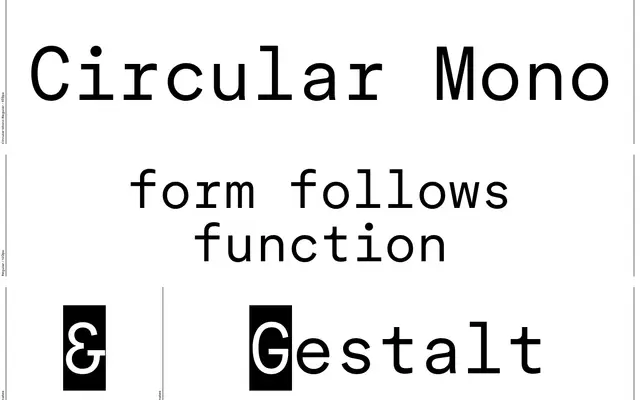
LL Circular Mono
Lineto · Laurenz Brunner · 2019
A monospaced adaptation of Laurenz Brunner's geometric sans LL Circular, released in 2019 after a decade of testing to fit fixed-width applications without sacrificing the family's warmth.
Where the original LL Circular balanced geometric rigour with warmth, the mono cut preserves x-heights, weights and joints intact while conceding certain signature forms, such as the uppercase O, C and G, to the demands of fixed-width spacing. The result reads with a faintly mechanical quality that suits code editors and technical interfaces without abandoning the considered construction of Brunner's original 2013 release. A careful piece of type engineering that demonstrates how a typeface's character can survive a fundamental structural constraint.
A monospaced cut of the geometric sans LL Circular, adapted to fixed-width spacing while retaining the circular construction and geometric character of the original family.